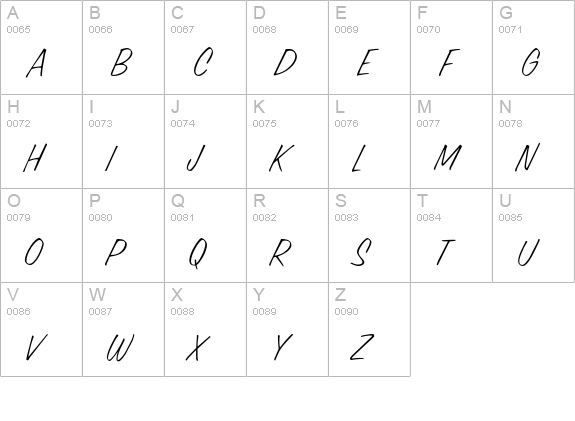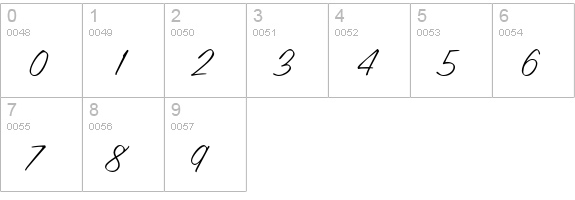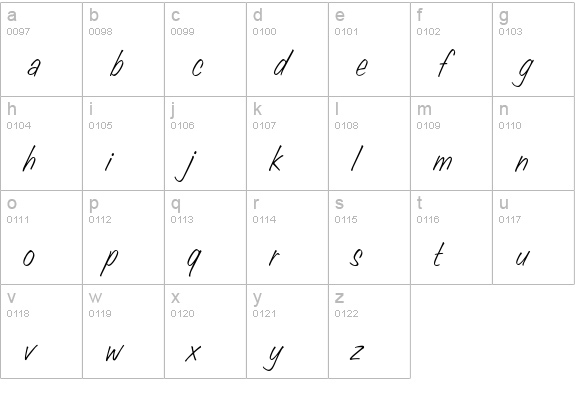
OPTICandid-Ballpoint Font Details
OPTICandid-Ballpoint is a charming and versatile font that exudes a sense of creativity and playfulness. Its smooth lines and rounded edges give it a friendly and approachable appearance, making it perfect for a wide range of design projects. Whether you're creating invitations, posters, logos, or social media graphics, OPTICandid-Ballpoint will add a touch of whimsy to your work. The best part? OPTICandid-Ballpoint is available for free download at FontsMarket.com. This means you can enhance your designs with this delightful font without breaking the bank. So why wait? Give your projects a fresh and fun look with OPTICandid-Ballpoint today!